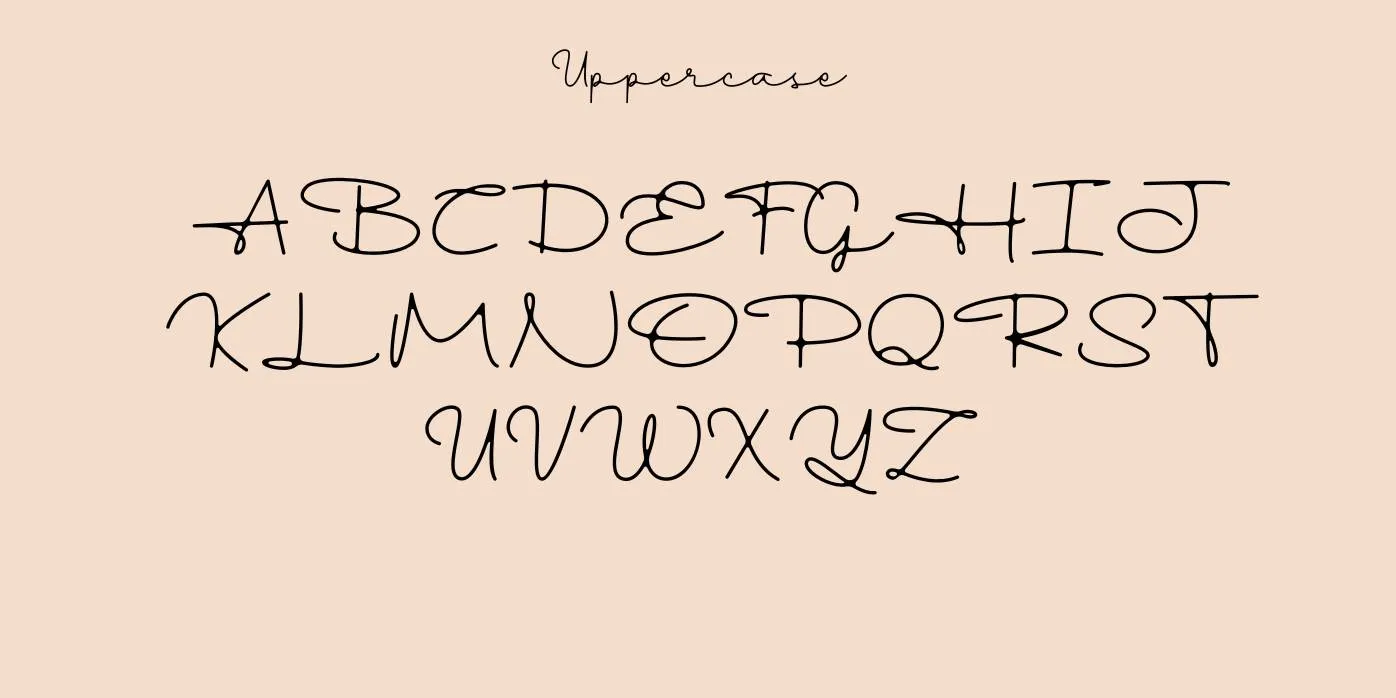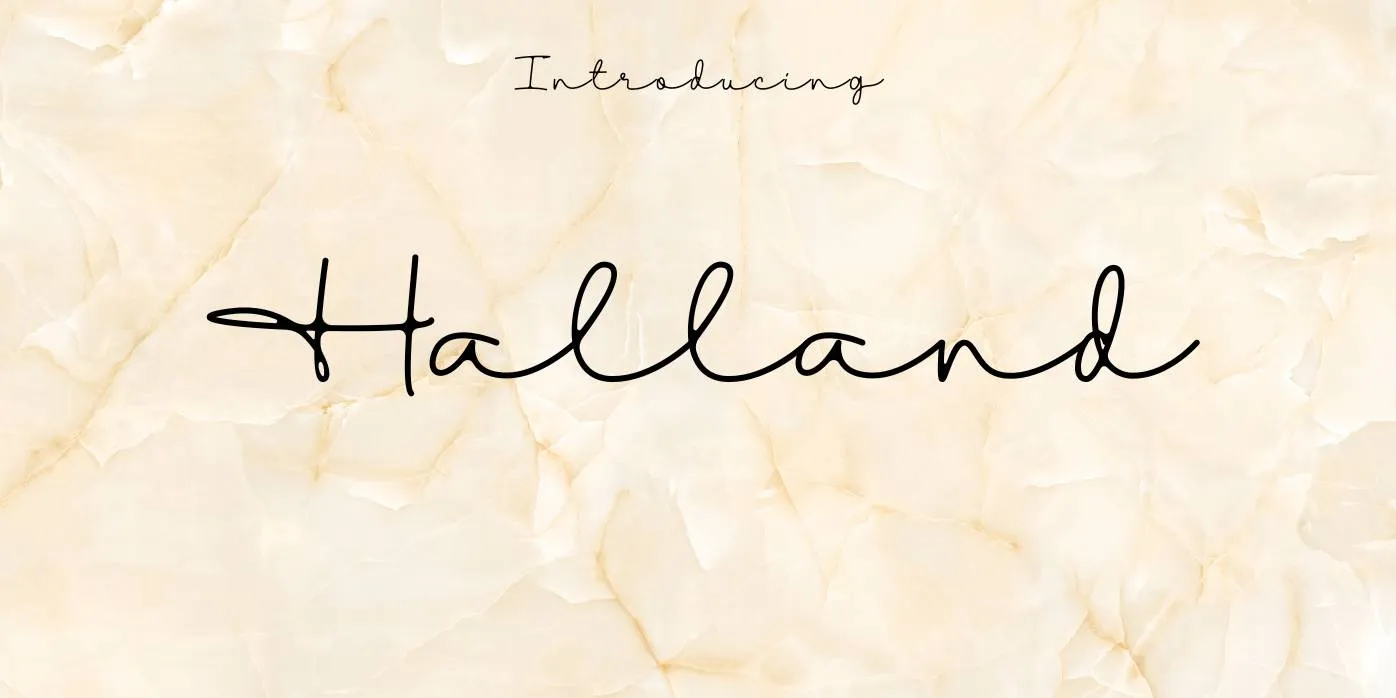
Halland Font
Nugi Nurzahid is the designer of this texture. Here you can download, one of the best handwritten fonts named Halland Font. This texture is categorized under the handwritten fonts. This font is designed with a regular style.
The characters of this texture are stylish, thin, and interconnected to each other. The characters of this font contain uppercase letters, lowercase letters, special words, punctuation, and numbers. There is an online font generator tool, where you can easily generate any type of font. The restu font is awesome for pairing with this typeface.
This pair has glorious similarities and varieties which maintain uniqueness and attraction in the texture. In this way, this texture looks beautiful and attractive.